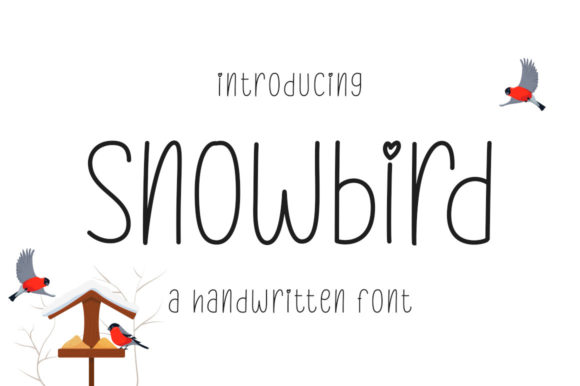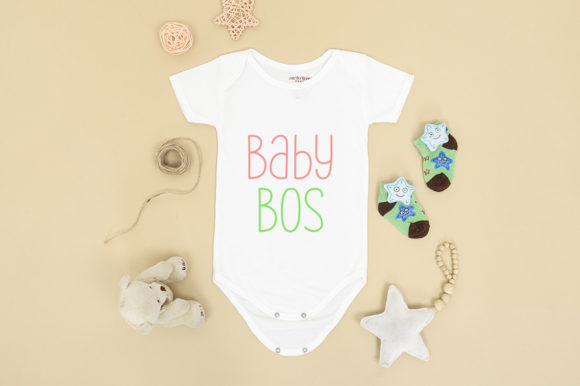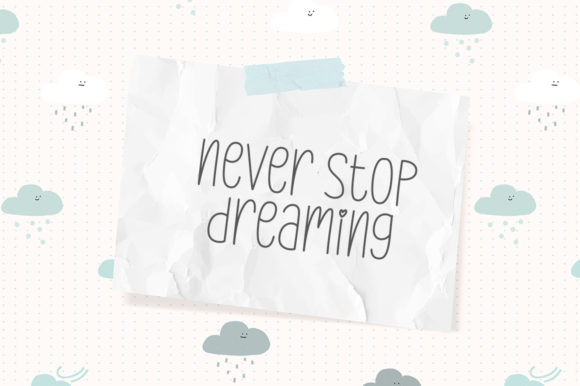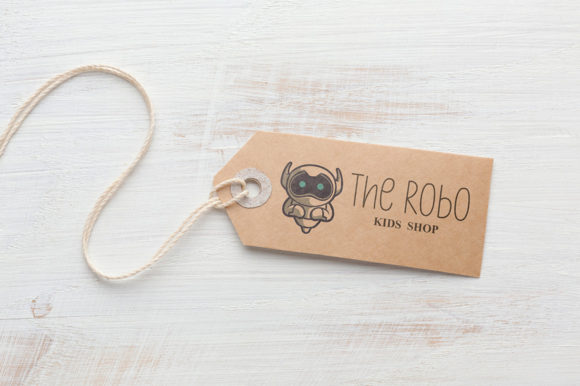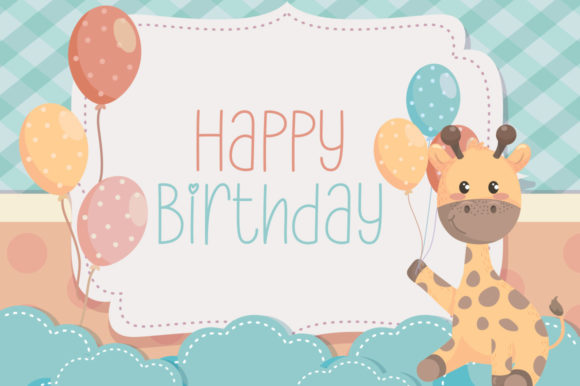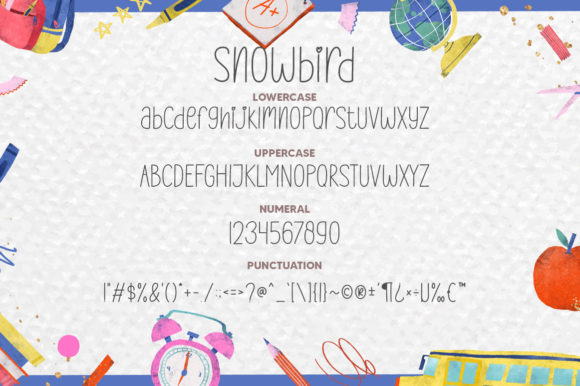
Snowbird Font
About Snowbird Font
Snowbird is a fresh, modern, and thin-lettered handwritten font. Its elegant and natural style will make each of your creations look gorgeous every time!